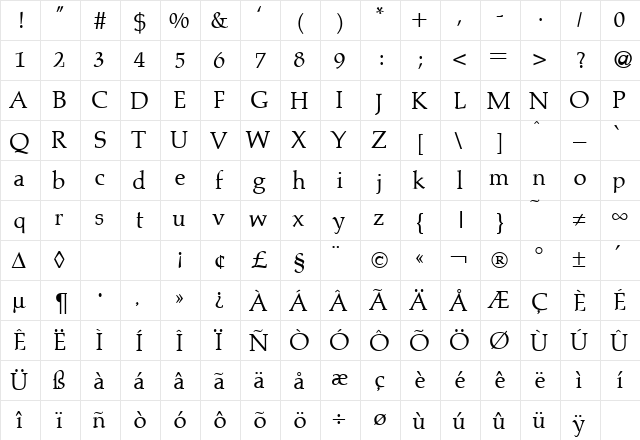
PalazzoOriginal Regular
Design Context for PalazzoOriginal Typeface
PalazzoOriginal takes a measured approach to typography — its balanced proportions and neutral character make it a reliable workhorse for both digital and print work.